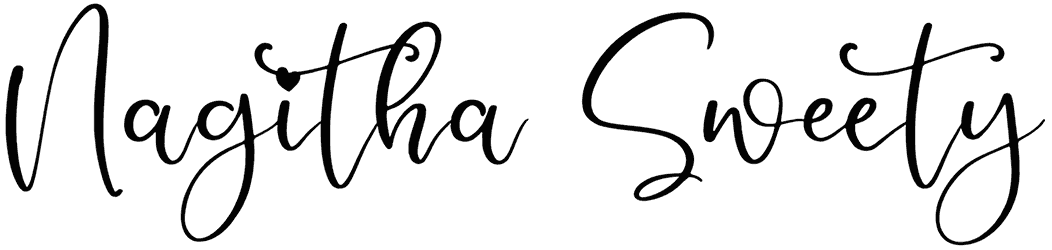
Nagitha Sweety Font
Nagitha Sweety is one of those fonts that closes the way for any mistakes and can create a purely personal space for you. This love font is ideal for making your content more attractive and establishing a live connection with the audience.
Although illegible, it can be a successful decorative element in your writing. With the great look, you can create your writing using this handwritten font. It’ll be easy to attract the audience through packaging design, wedding cards, or clothing.